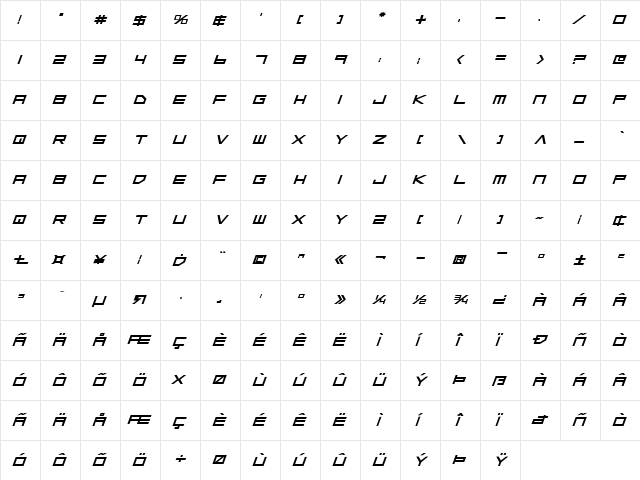
Low Gun Screen Bold Expanded Bold ExpItalic Font Preview
Design Context for Low Gun Screen Bold Expanded Typeface
Low Gun Screen Bold Expanded offers clean, dependable letterforms without strong stylistic allegiance, making it a practical choice for designers who need flexibility. The dynamic lean of this cut emphasises speed and emphasis in any layout. The heavy weight commands attention and anchors typographic hierarchies.
Pro Tip: Try Low Gun Screen Bold Expanded for annotation and caption copy alongside an upright companion — the contrast in angle creates a dynamic but ordered typographic system.